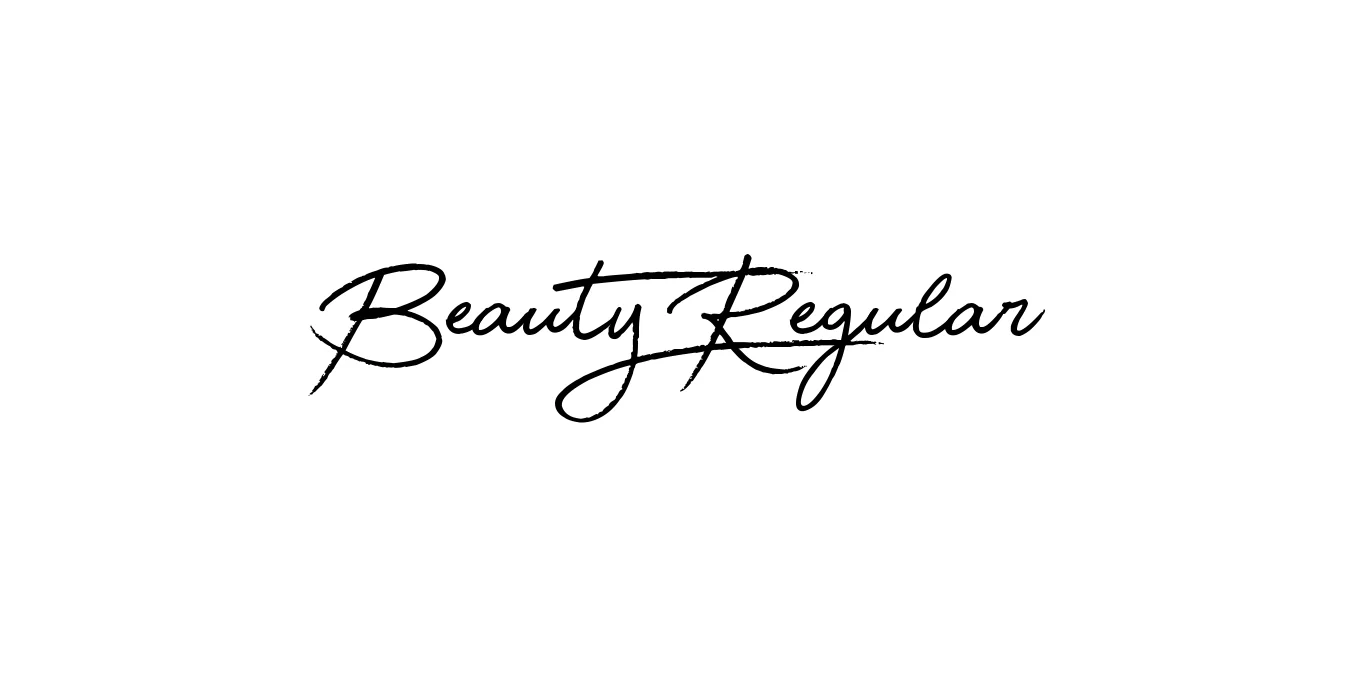
Beauty Regular
Designed by Vunira
Beauty Regular is a sophisticated calligraphy-style script font characterized by its elegant curves and fluid strokes. It was designed to bridge the gap between traditional handwriting and modern digital typography, offering a romantic and feminine aesthetic that appeals to designers worldwide who seek a refined touch.
This typeface is particularly popular in the wedding industry and luxury branding sectors. Its smooth lines and expressive characters make it ideal for high-end packaging, logo design, and editorial layouts where a touch of class and human personality is required to create a lasting impression.
Beauty Regular Best Uses
Perfect for invitations, envelopes, and place cards seeking a romantic feel.
Ideal for fashion, beauty, and lifestyle brands requiring a signature look.
Great for aesthetic quotes and promotional graphics on platforms like Instagram.
Adds a luxury touch to beauty product containers and gift boxes.